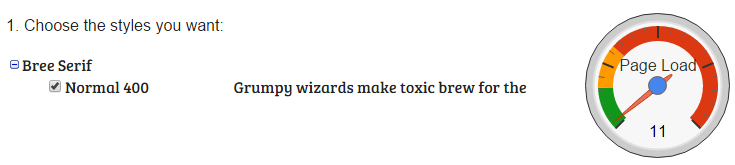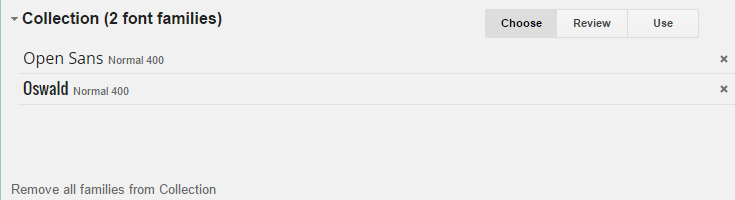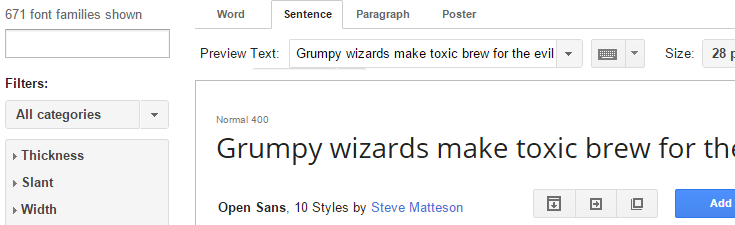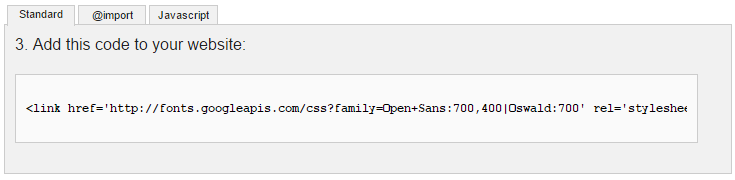
Adding Custom Google Fonts to WordPress with Enqueue
You may find the scripts provided for adding Google Fonts to your site don't work well or at all in WordPress. In this Weekend WordPress Project we look at how to use an enqueue script to add Google fonts to your site in just a few simple steps.
The default web browser fonts are functional, but adding custom fonts to your WordPress site can give your theme a style boost and a more cohesive look.
You can add individual fonts with CSS3’s @font-face rule, but this method requires you to upload the font files to your server. Using an enqueue script on the other hand, links external scripts to your site, which saves space.
This isn’t always the best method to use for scripts that aren’t your own since it means the external site will have an increased server load, but Google suggests this method when using their fonts.
The Google fonts directory where a popular sample of a font is displayed, called "Open Sans" along with a menu on the top to display viewing options and one on the left to refine your search.
Google fonts are free to use and there are hundreds available for you to choose.
You may find the scripts provided for adding Google Fonts to your site don’t work well or at all in WordPress. In this Weekend WordPress Project we’ll looks at how to use an enqueue script to add Google fonts to your site in just a few simple steps. Ready to jazz up your site? Read on.
Choosing Fonts to Use
With your child theme all ready to go, the next step is to choose the fonts you want to include in your theme. Search through the available fonts on the Google Fonts page and when you find ones you want, click Add to Collection next to the font sample.
A pop-up section will appear at the bottom of the page with a list of the fonts you chose.
The collection window with two fonts included.
You can sort through the list and refine the list by clicking the “x” button to the right of the font to delete it.
Next, click the Use button at the top, right of the Collections box. On the next page, click the checkboxes to select the font weights you wish to use.
The dial on the right will indicate how fast the page will load with the fonts you have selected. It’s important not to exceed about 160 on the scale and the lower the number, the faster your site will load.
An example of the "Bree Serif" Google font weight selection. A preview of the relaxed, bold serif font sits to the right of the title and check box for the font weight selection of "Normal 400." Further to the right there is a dial that shows the low impact this font will have once added to your site.
Adding all the fonts you want to use to a collection will show you the total page load speed for all the fonts and weights you chose.
Next, scroll down and choose whether you need extra character sets for displaying special symbols called subsets that come with certain languages such as Greek and Vietnamese by clicking their corresponding checkboxes.
If you only require English characters, then you can skip this step as they are included by default.
Finally, notice the link that appears in the box listed under step three.? Specifically, pay attention to the part of the link that includes the font names, weights and subsets.
In this example, you need the segment Open+Sans:700,400|Oswald:700.
If you included subsets, you need that part of the link as well. Out of that segment which will read something like &subset=latin,latin-ext', all you need is the subset names. In this example, you would only need latin,latin-ext.
An HTML code is shown within a large text field which includes the links to the font weights you selected.
You may notice the link isn’t SSL security protected (using “https”). If you are using SSL on your site you don’t have to worry because the method in this article will ensure your site remains secure.
Beneath this section you’ll also see a sample of suggested CSS for styling your fonts. You will need this code in a moment when adding the fonts to your theme.
The next step is to edit your functions.php file, located in your theme’s folder: wp-content > themes > your-theme.
If you’re using cPanel, select the file and click Edit at the top of the page. If a pop-up opens that you haven’t previously disabled, click Edit to continue. Add the following code to the bottom of the page, leaving a blank line above the last line of code:
Copy and paste the fonts from the link into line three of this example. If you included the subset option for special characters, enter it next to 'subset' => which is on line four in the example above. Finally, save the file.